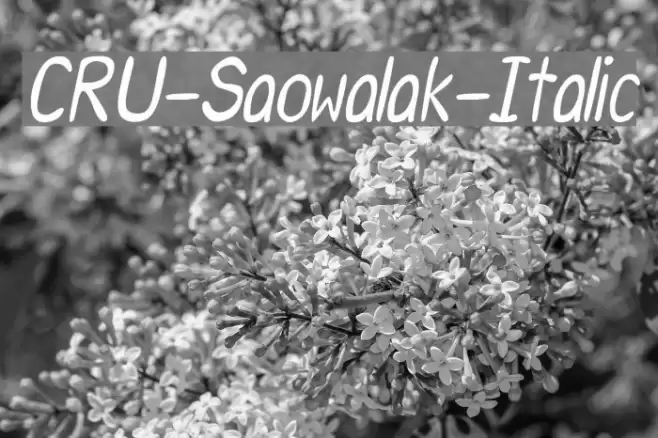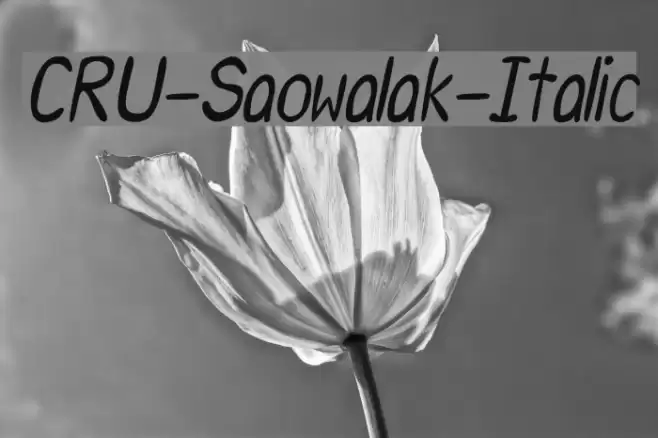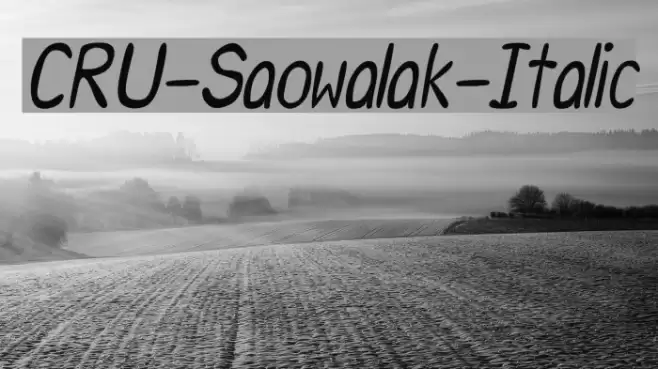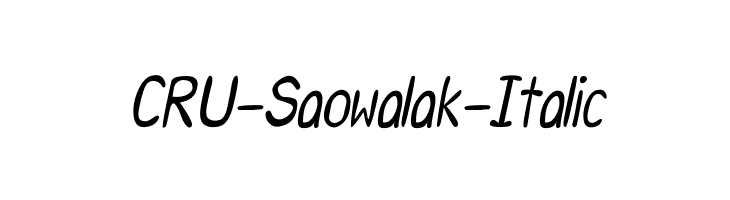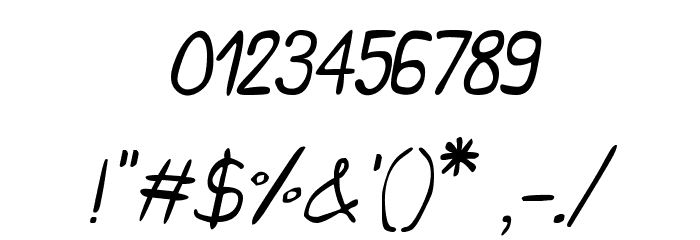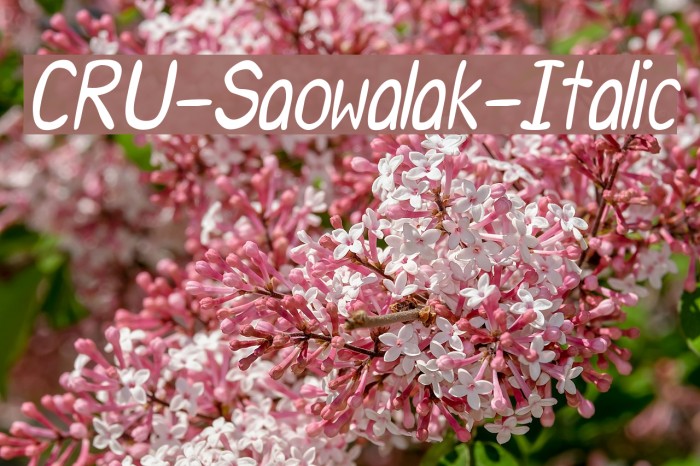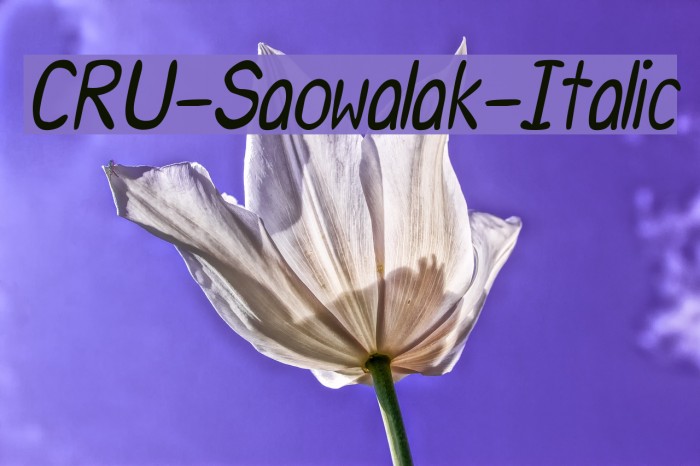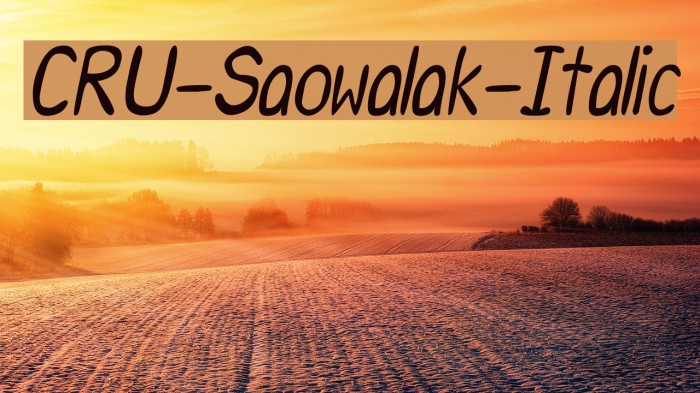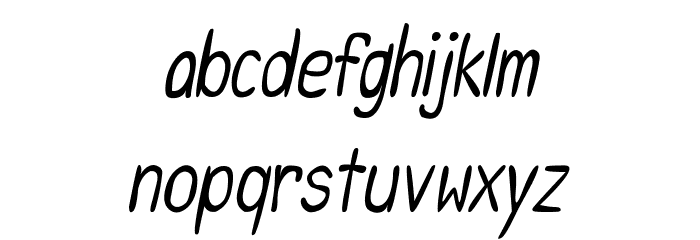
CRU-Saowalak-Italic Font
CRU-Saowalak-Italic Description
This font features a playful and dynamic italic style, characterized by its smooth, flowing curves and slightly slanted orientation. The letters are well-formed with a consistent stroke width, giving it a clean and modern appearance. The uppercase and lowercase letters maintain a uniform style, while the numerals and special characters complement the overall design. Its informal yet legible nature makes it suitable for a variety of creative applications. The font's distinct personality is conveyed through its lively and energetic form, making it ideal for projects that require a touch of whimsy and flair.
A playful and dynamic italic font with smooth, flowing curves from Uncategorized fonts.
- Proposed Projects: Ideal for greeting cards, invitations, playful branding, and creative posters.
- Use Case: Headlines, Logos, Creative projects